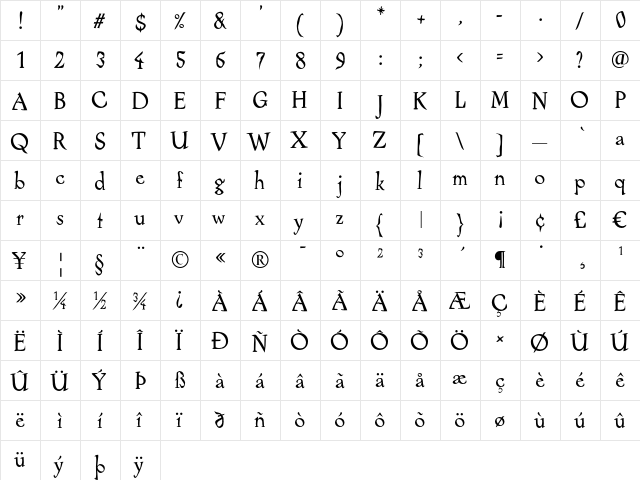
Alcoholica Regular
Design Context for Alcoholica Typeface
Alcoholica takes a measured approach to typography — its balanced proportions and neutral character make it a reliable workhorse for both digital and print work.